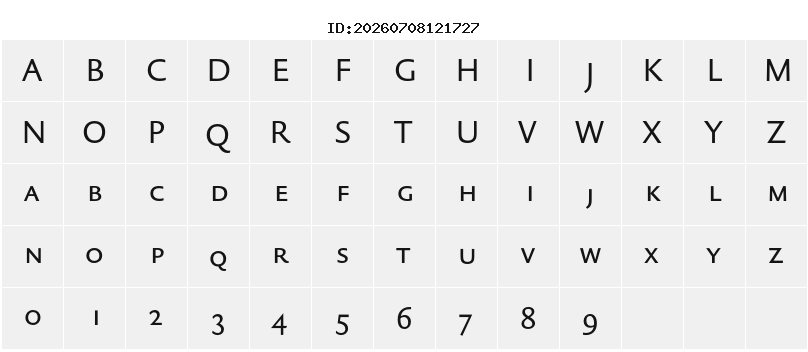
DTLHaarlemmerSansD Caps Preview
About DTLHaarlemmerSansD Caps.otf
DTLHaarlemmerSansD Caps.otf is a modern, elegant sans-serif font designed for ultimate readability and visual harmony. Perfect for branding, headlines, web design, and print materials.